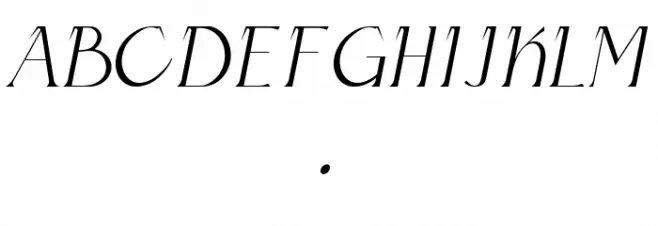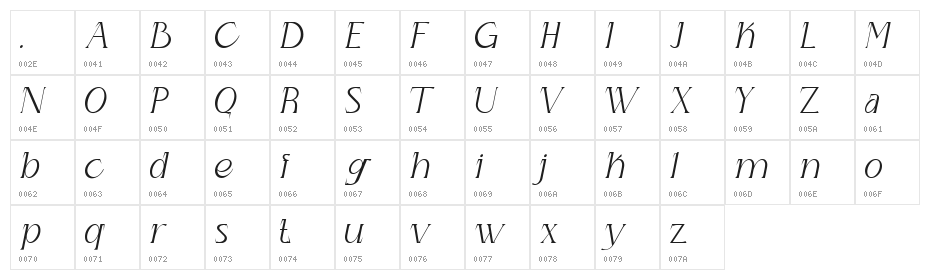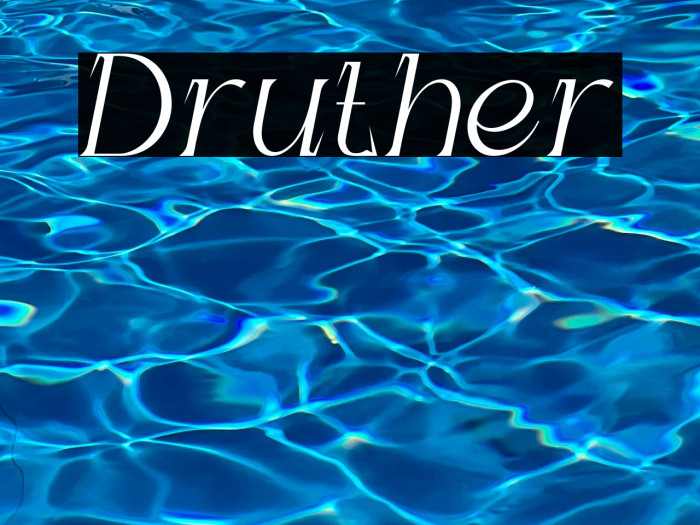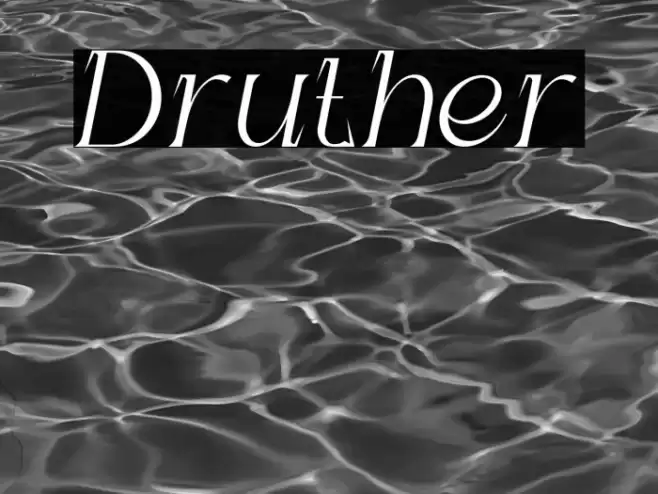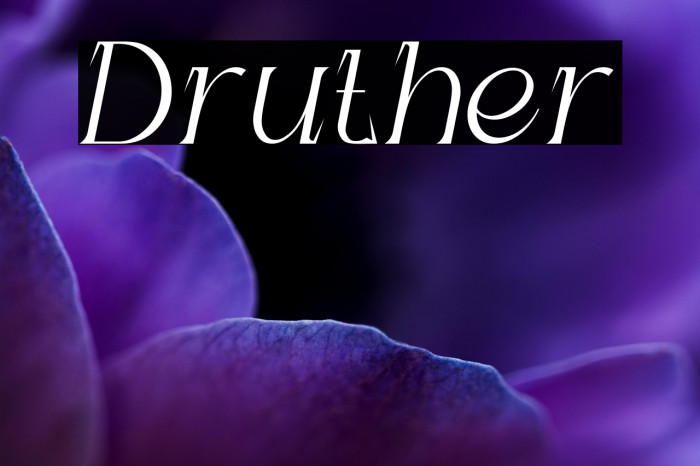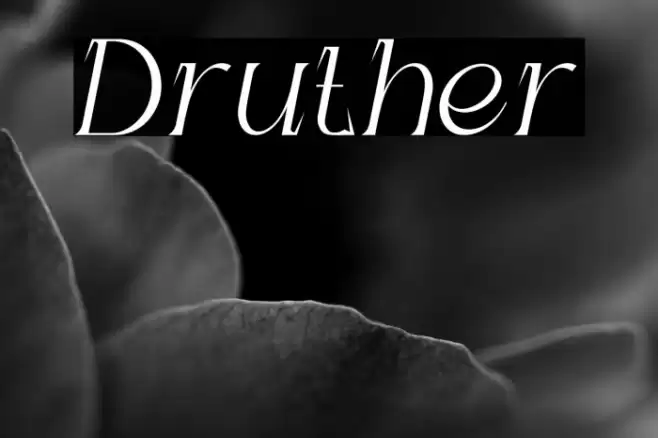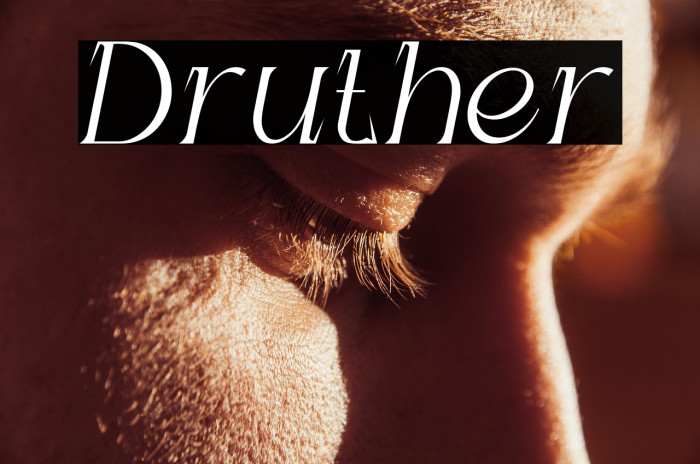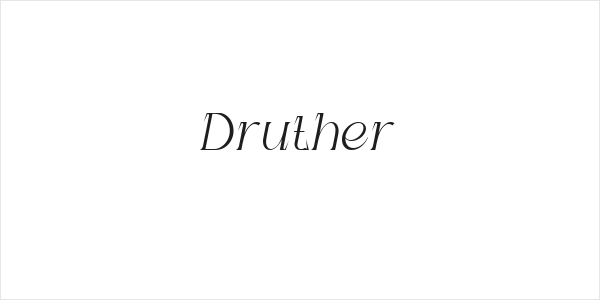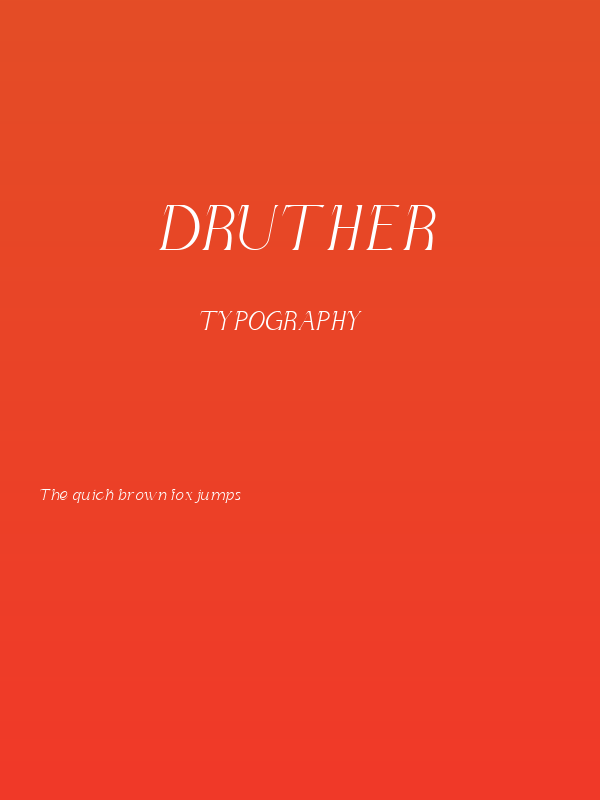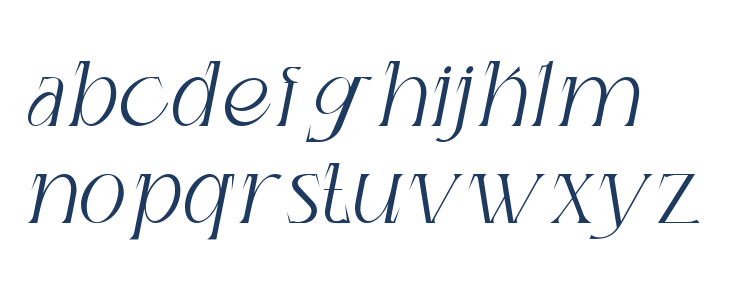
Druther Font
Druther Description
This font exhibits a refined and elegant style, characterized by its slanted and flowing letterforms that suggest a sense of movement and grace. The uppercase letters are tall and slender, with a slight inclination that adds a dynamic quality. The lowercase letters maintain a consistent slant, complementing the uppercase with their smooth curves and delicate strokes. The font's overall appearance is sophisticated, making it suitable for formal and artistic applications. The contrast between thick and thin strokes is moderate, enhancing readability while maintaining an artistic flair.
| Use Case | Headlines, Invitations, Artistic projects |
| Proposed Projects | Ideal for wedding invitations, elegant branding, fashion magazines, and artistic posters. |